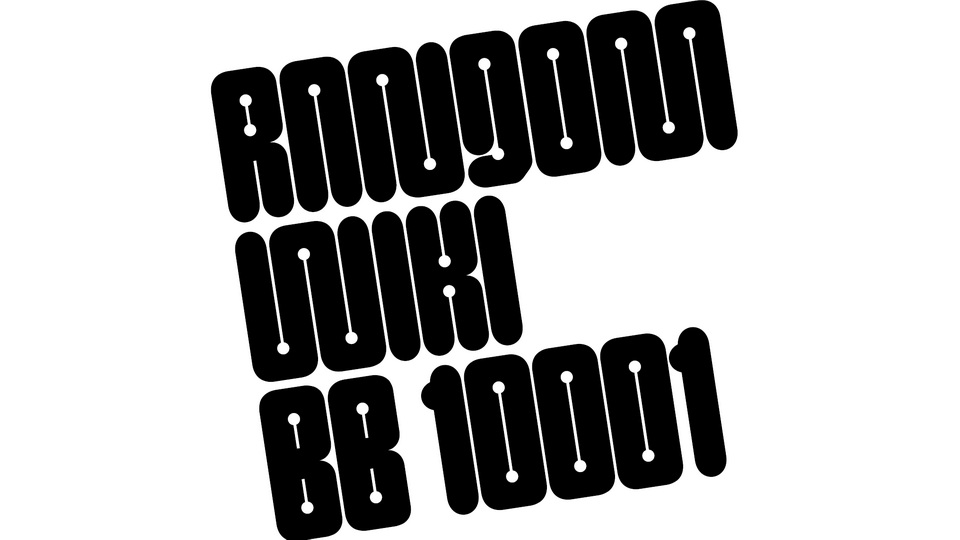
Download RandomWiki BB 10001 is a display typeface based on a randomly selected Wikipedia article and inspired by BB 10001. RandomWiki BB 10001 was created during a type design initiation workshop given by Lucas Descroix (Bonjour Monde) in February 2023.